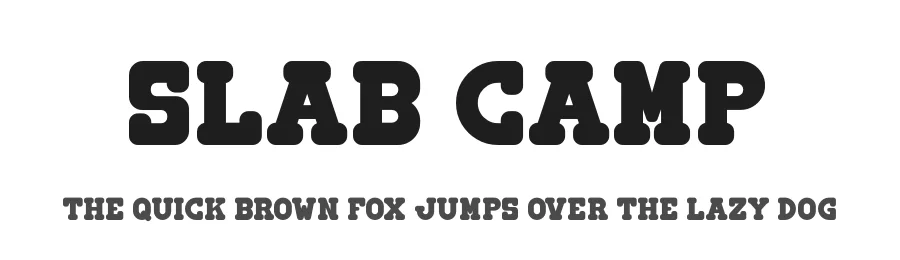
About Big Ten Block Font
Big Ten Block is a serif font designed by Daniel Heikkinen. It includes 58 glyphs, a regular weight, TTF (TrueType) format, and 89 languages. Big Ten Block is free to download; check the license details on this page before commercial use. Serif fonts like Big Ten Block work best for body text, editorial layouts, book covers, and classic branding.
Big Ten Block Font is a versatile serif font that works for both headings and body text. Pair it with a contrasting sans-serif or slab serif font to add visual interest and a clear distinction between titles and body copy.
Big Ten Block Font
Big Ten Block Font is a serif typeface by Daniel Heikkinen, ideal for logos, invitations, branding, and creative projects.